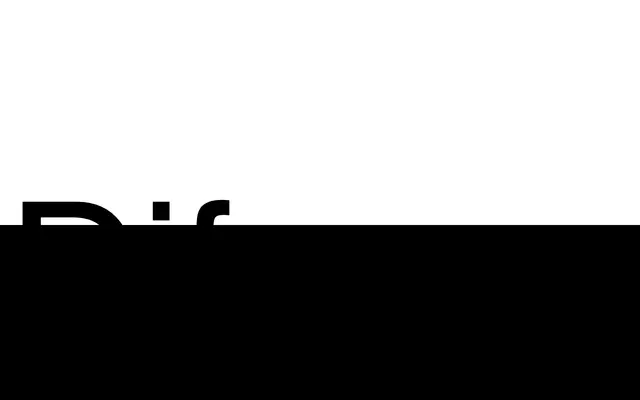
Diform
A bare-bones geometric sans in 16 styles from Hair to Black, designed by Ondrej Jób for straightforward, versatile use across print and screen.
Sixteen styles spanning Hair to Black with matching italics give Diform a broad working range for both text and display settings. Low contrast, natural width and a medium x-height keep it practical rather than characterful. Coverage extends to over 100 languages via Basic and Extended Latin, with a full suite of figure variants and OpenType features including a stylistic alternate set and case-sensitive forms.
The foundry describes Diform explicitly as a geometric sans-serif with low contrast, natural width and medium x-height, fitting squarely within the geometric sans subcategory.